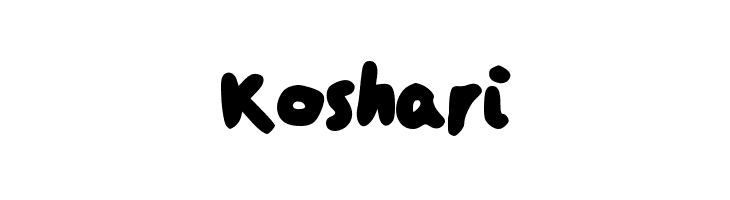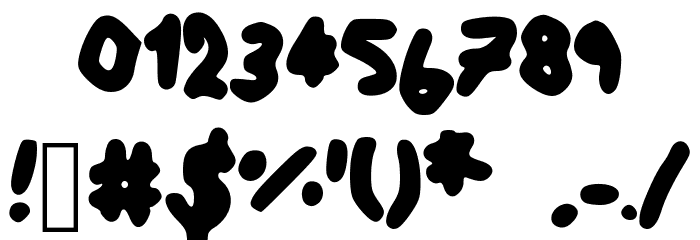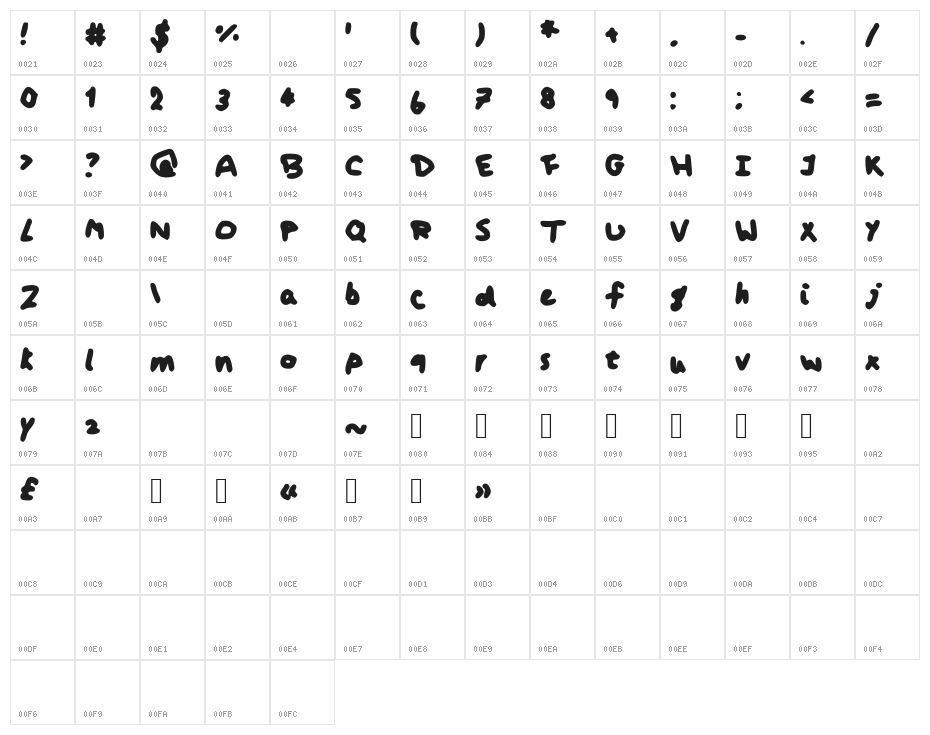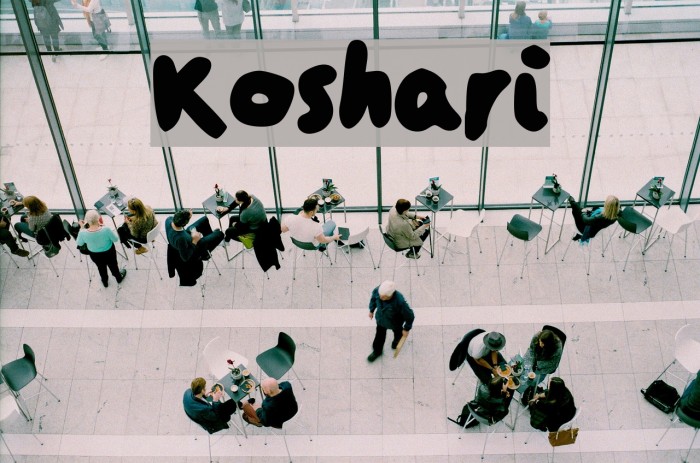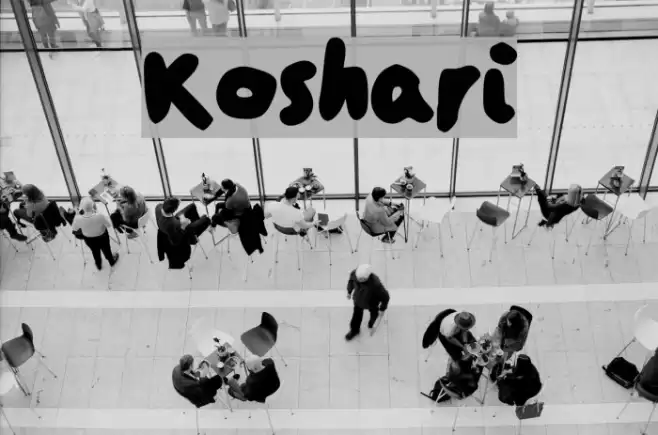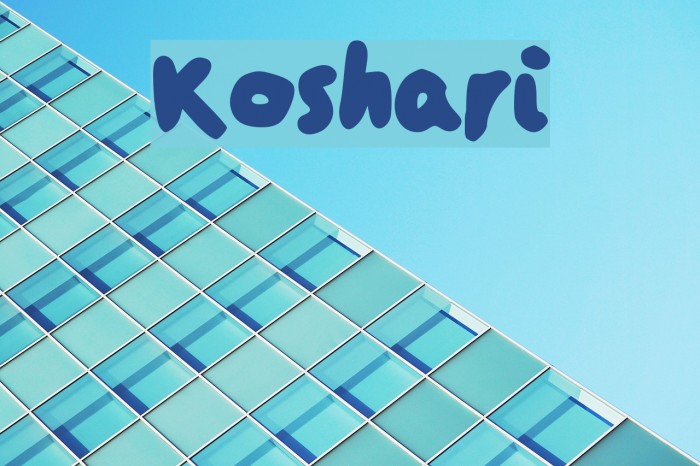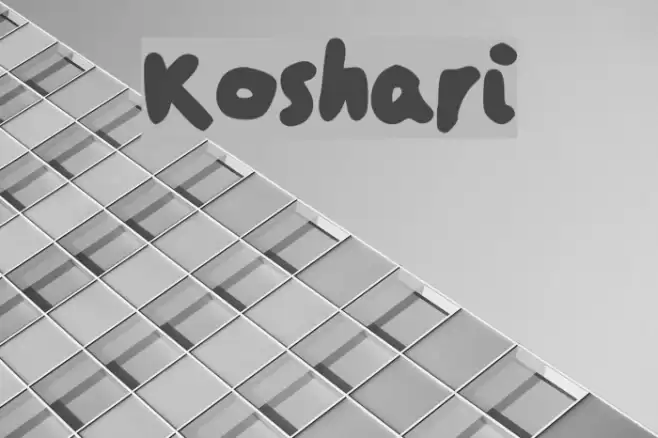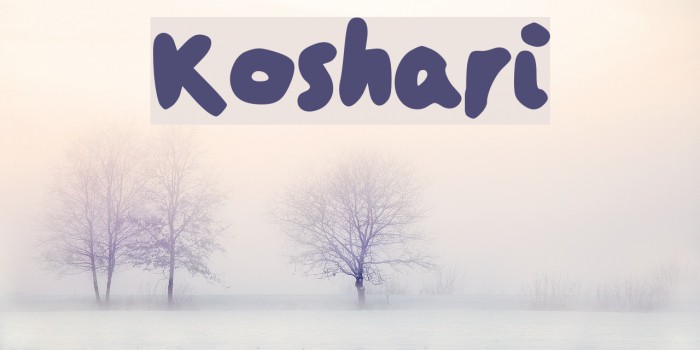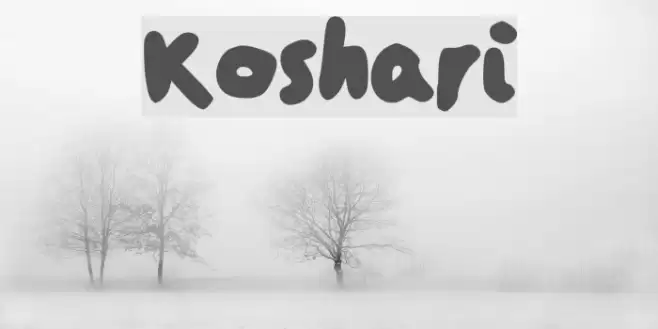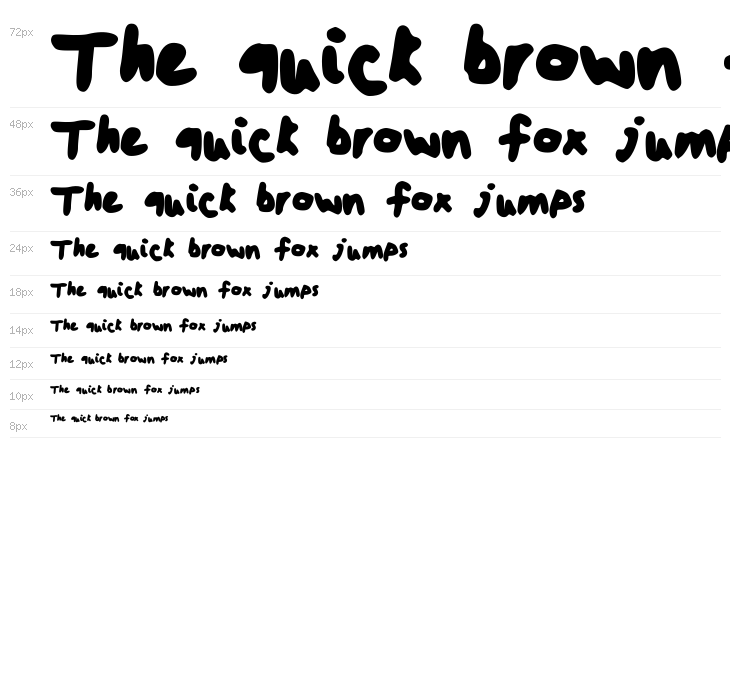
Koshari Font
Koshari Description
This playful and bold font features thick, rounded strokes that give it a lively and energetic appearance. The characters are designed with a hand-drawn style, creating a sense of spontaneity and creativity. The uppercase and lowercase letters maintain a consistent weight, contributing to a cohesive look. The numbers and special characters follow the same design principles, ensuring uniformity across all glyphs. This font's informal and friendly nature makes it ideal for projects that aim to convey a sense of fun and approachability.
| Use Case | Logos, Posters, Invitations |
| Proposed Projects | Ideal for children's books, playful branding, casual invitations, and creative posters. |